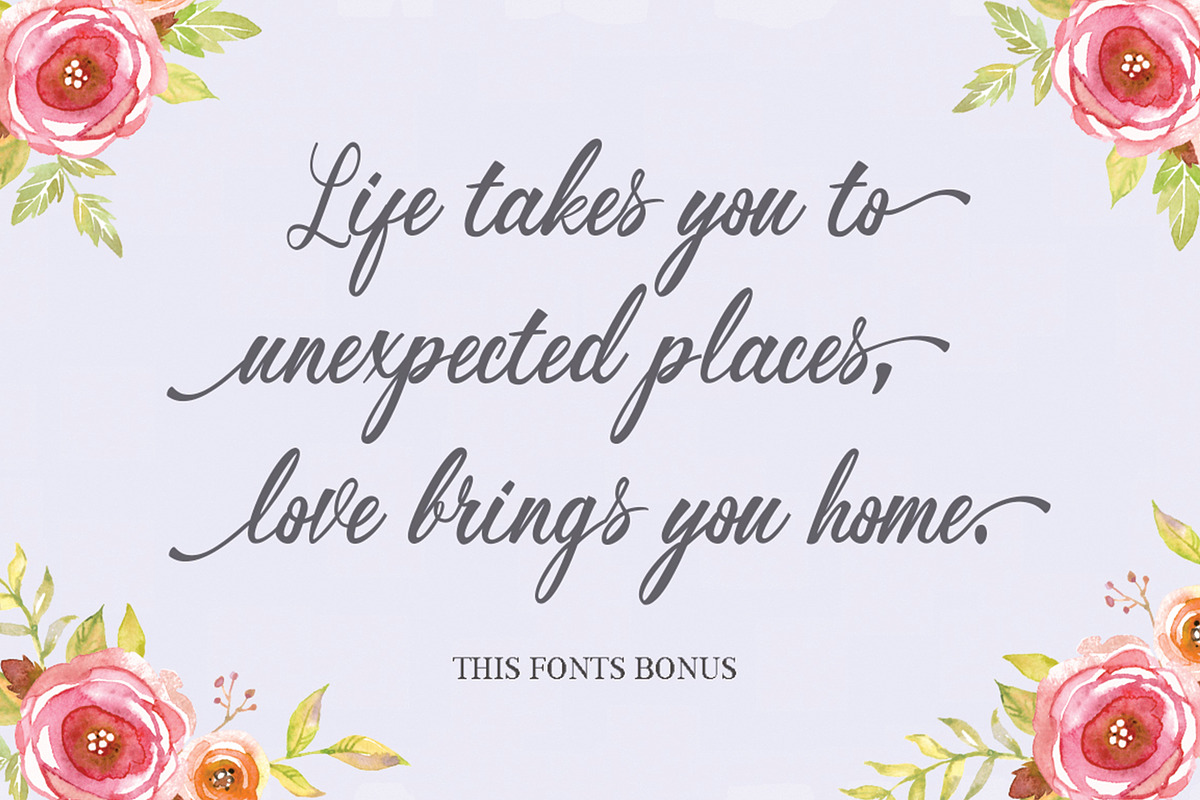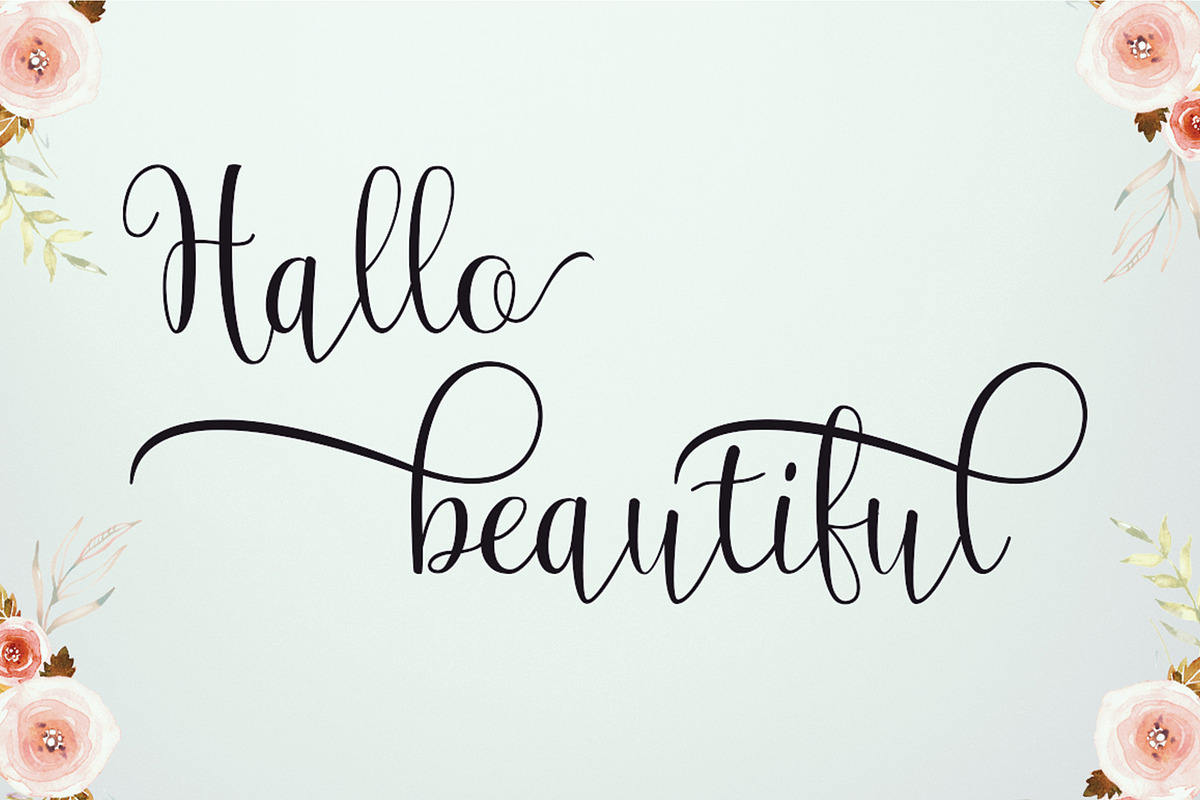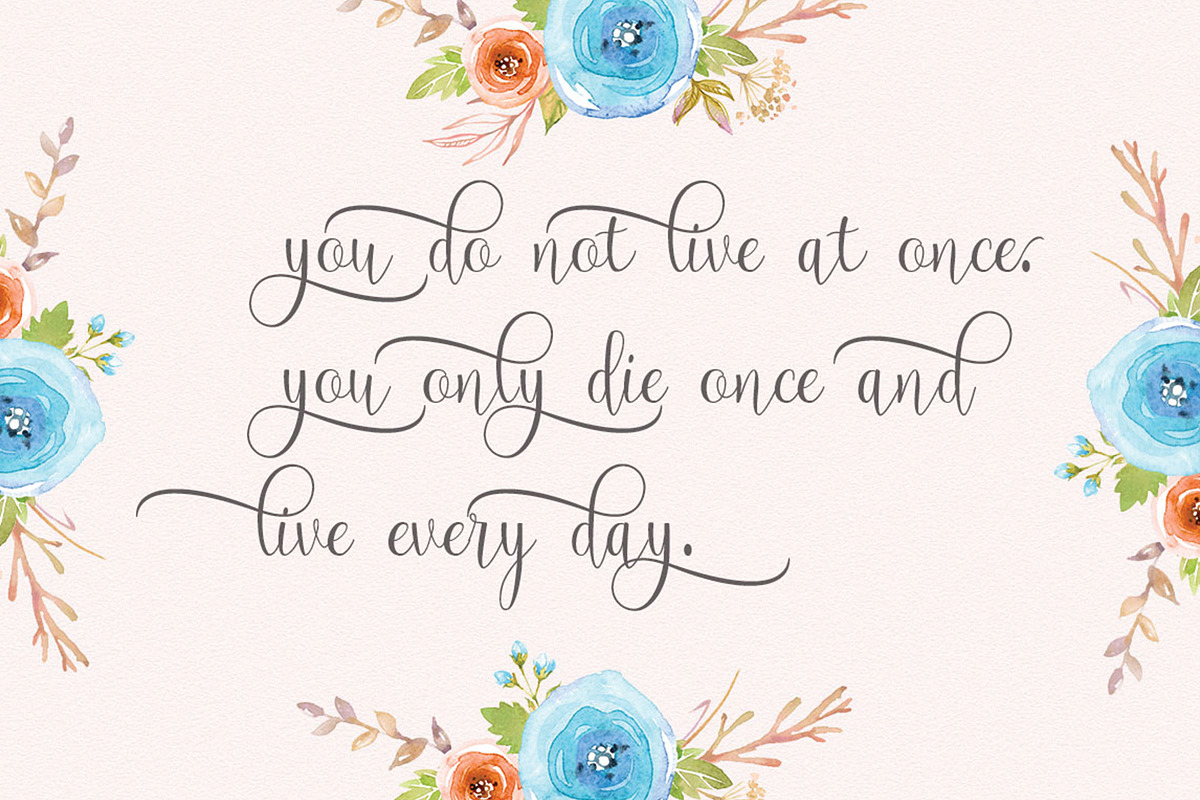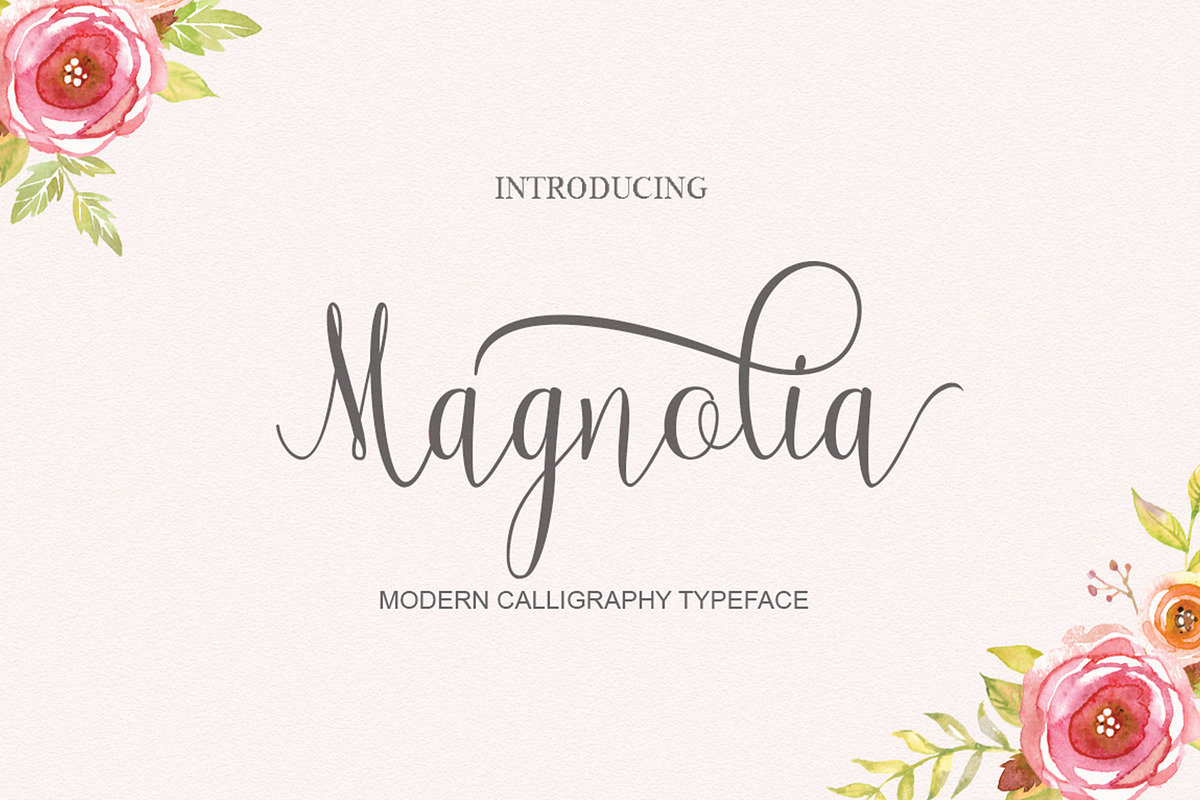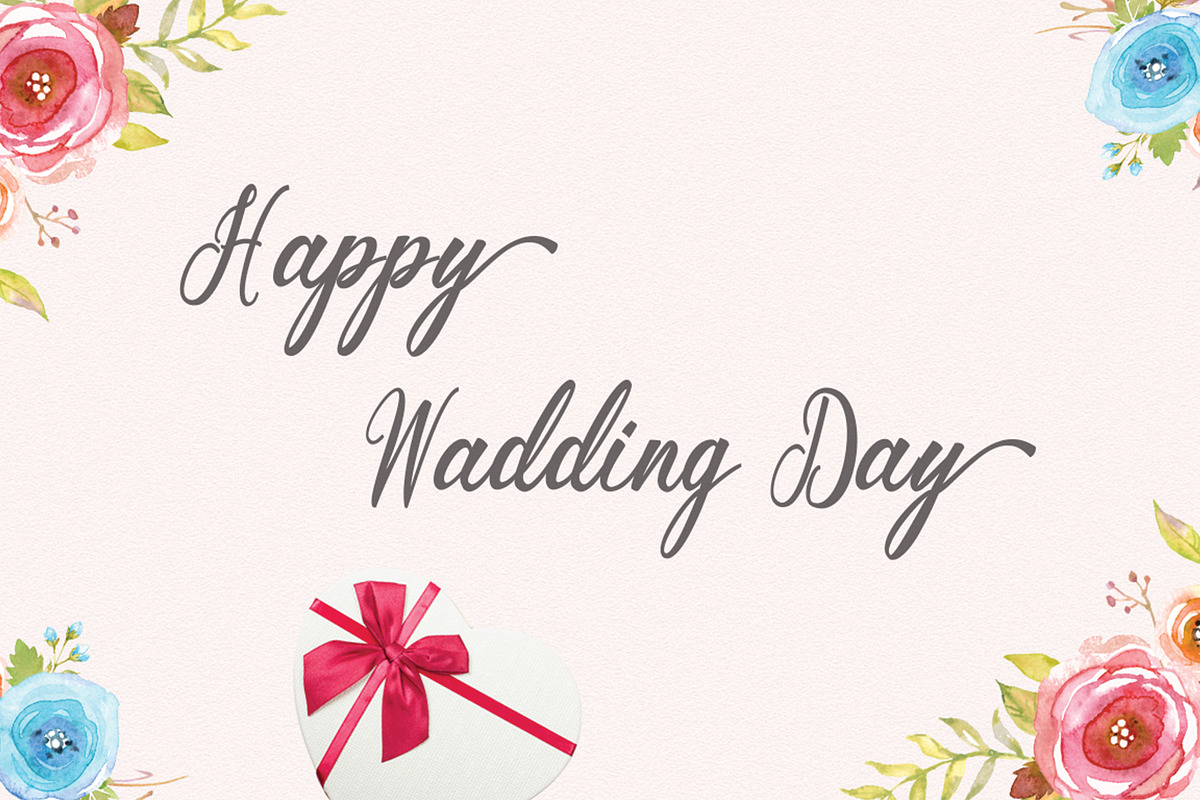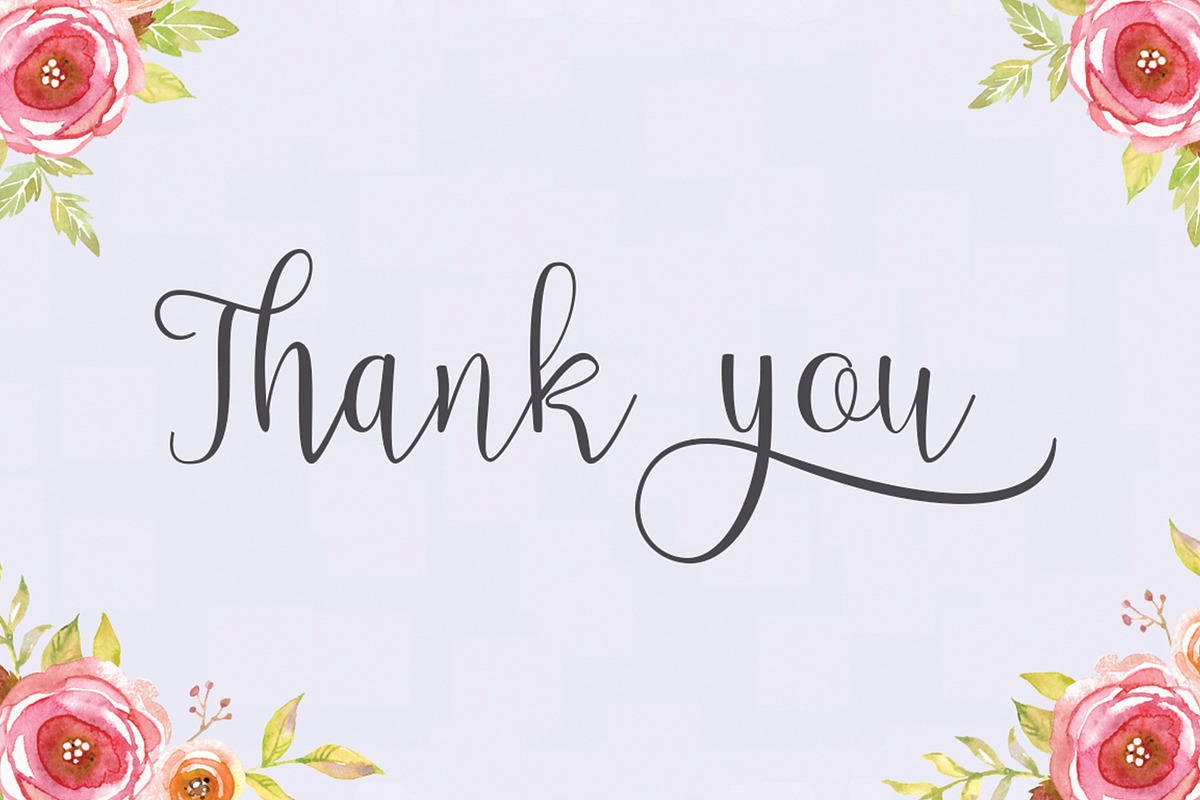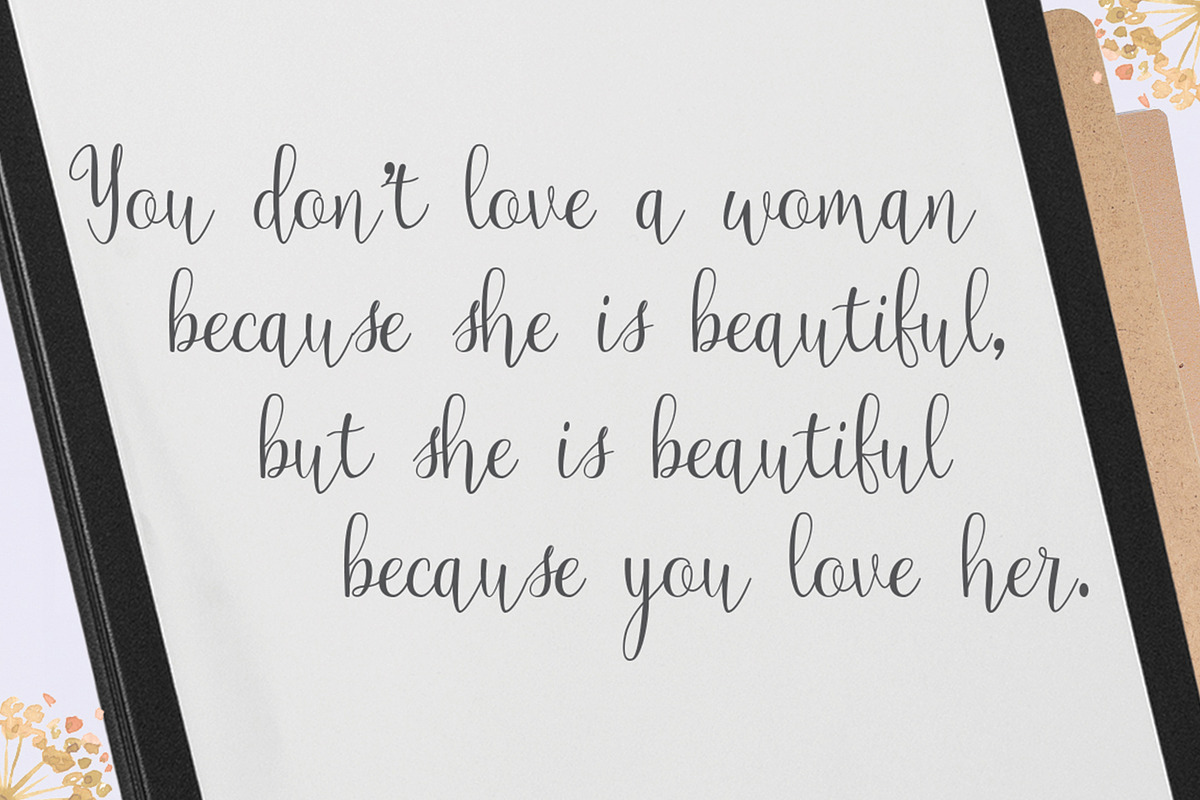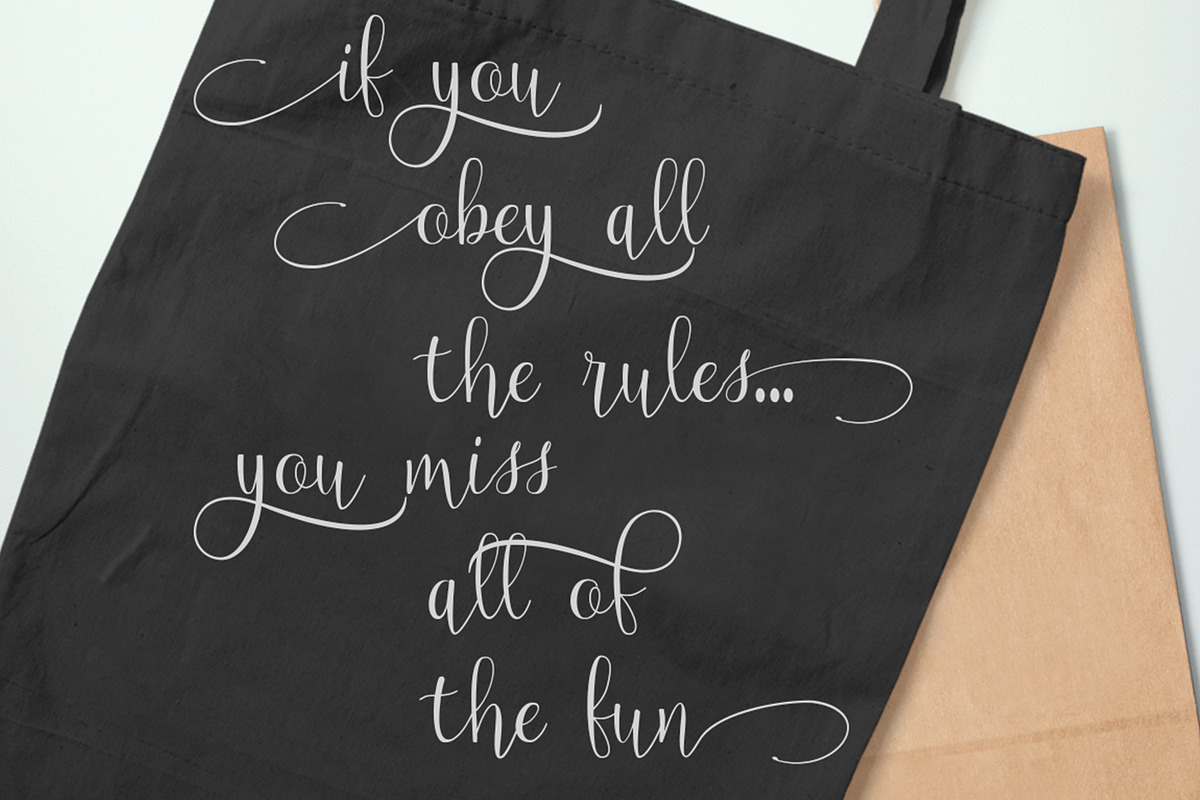
Magnolia
Magnolia & Buttercup is modern script font,
Magnolia & Buttercup Font Script stylish calligraphy that have a varied base line, fine lines, classic and elegant touches. Can be used for various purposes. Such as title, signature, logo, wedding invitation, t-shirt, letterhead, nameplate, label, news, poster, badge etc.
Magnolia & Buttercup Script displays alternate characters. Includes initial letters and terminals, alternatives, ligatures and multiple language support.
- Standart ligatures
- Stylistic sets
- Contextual Alternates
- PUA Unicode (Private Use Areas)
a font that made the hand by having the character up and down like a dancer. Millenial has a very unique style of calligraphy, it is very suitable for use in the work of modern design.